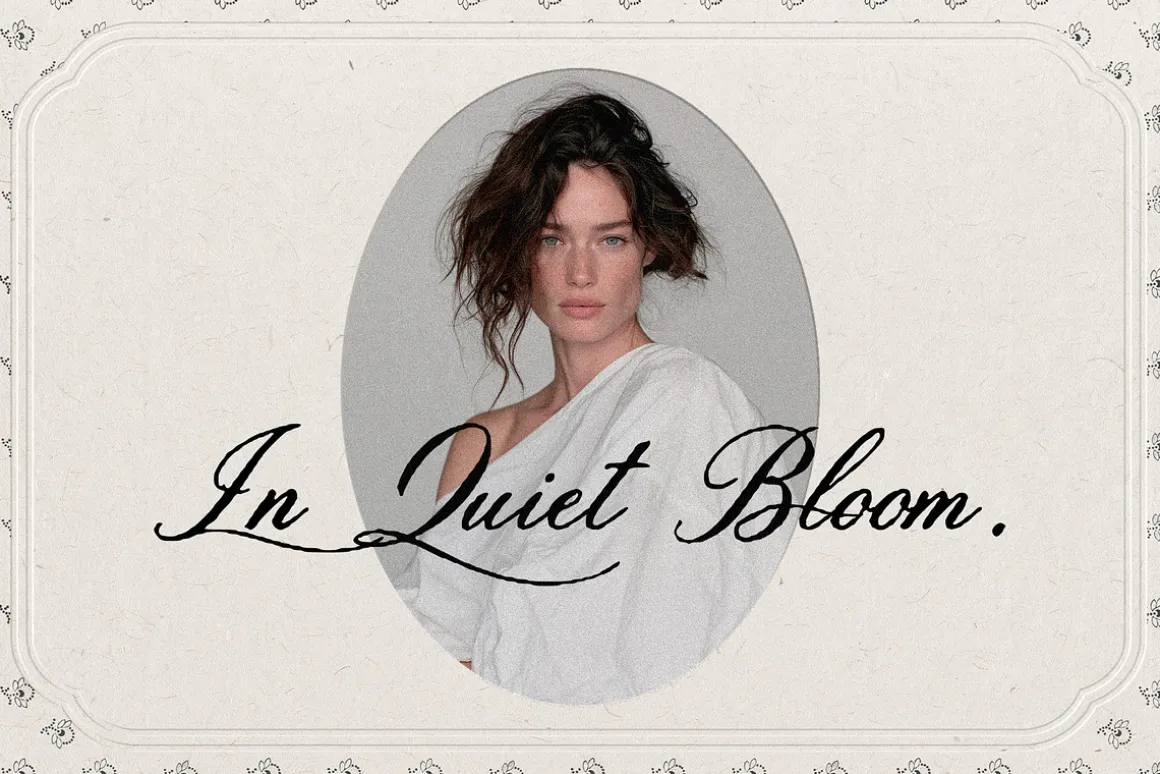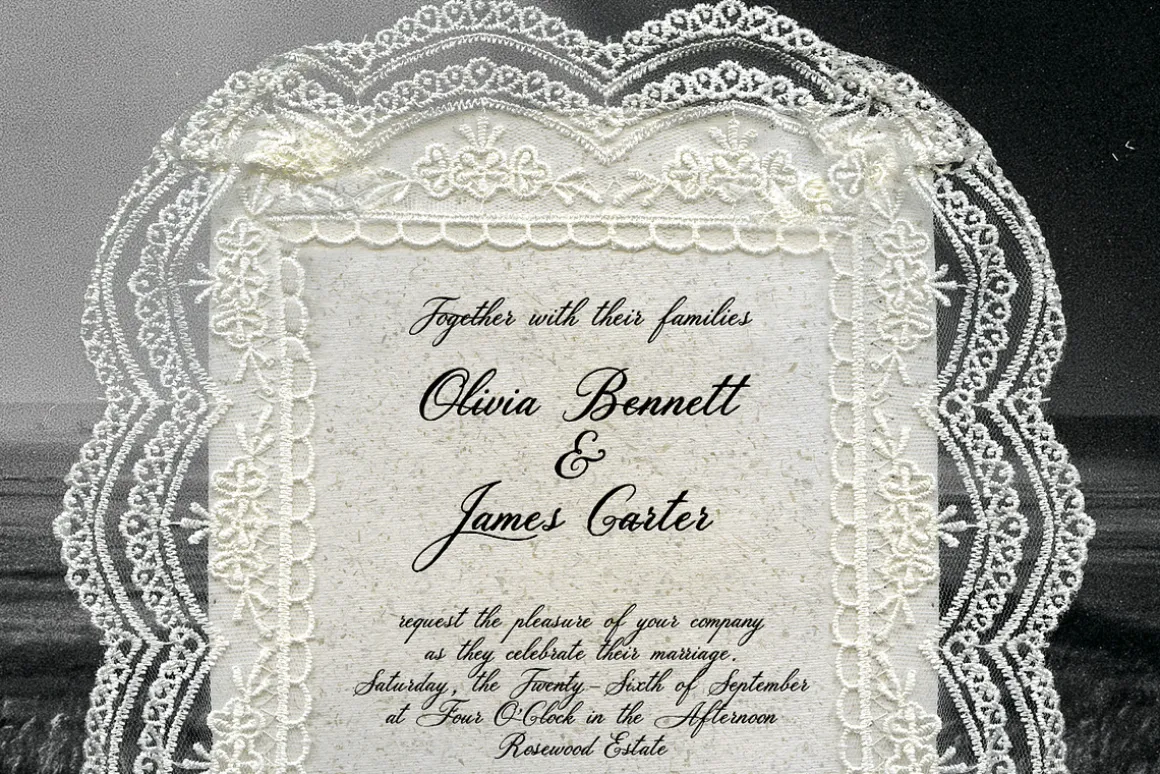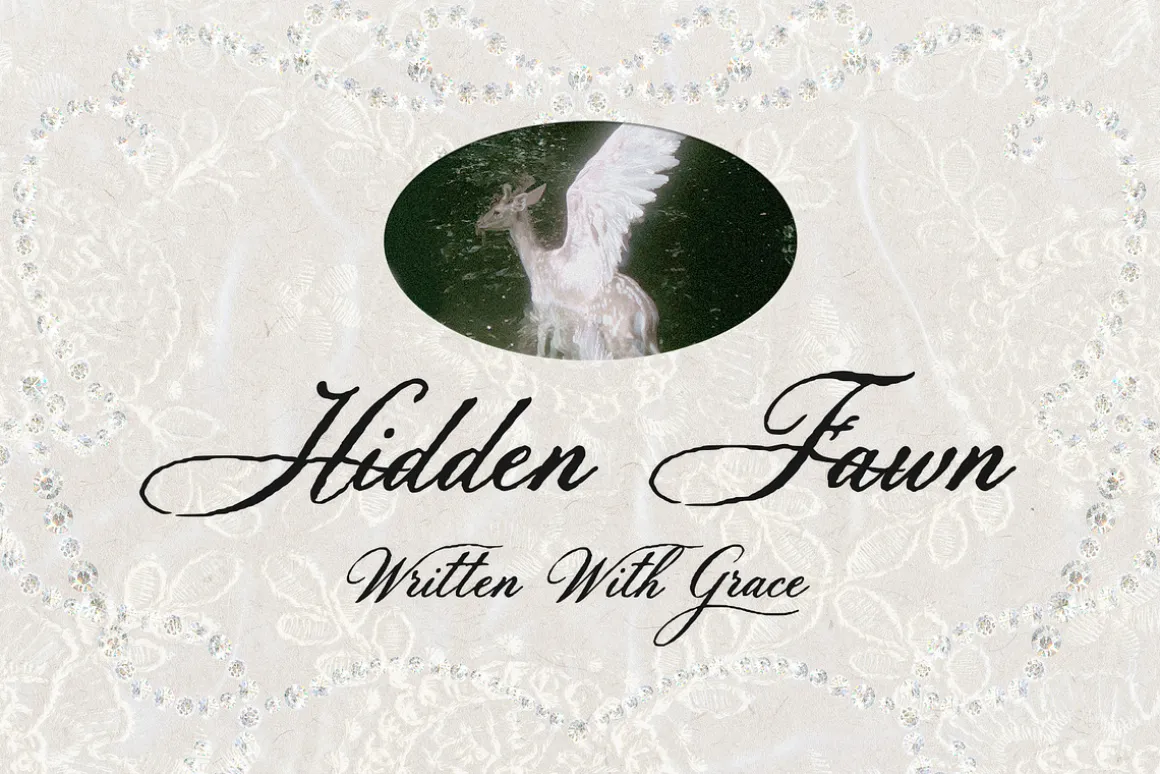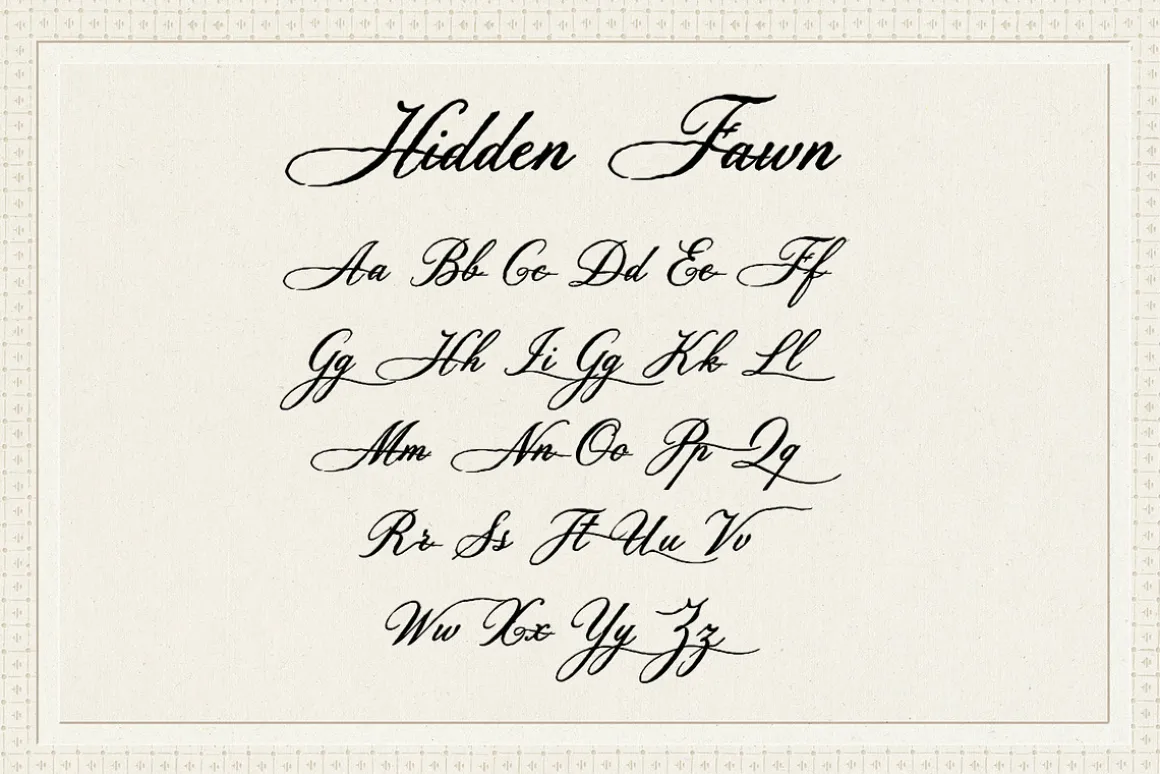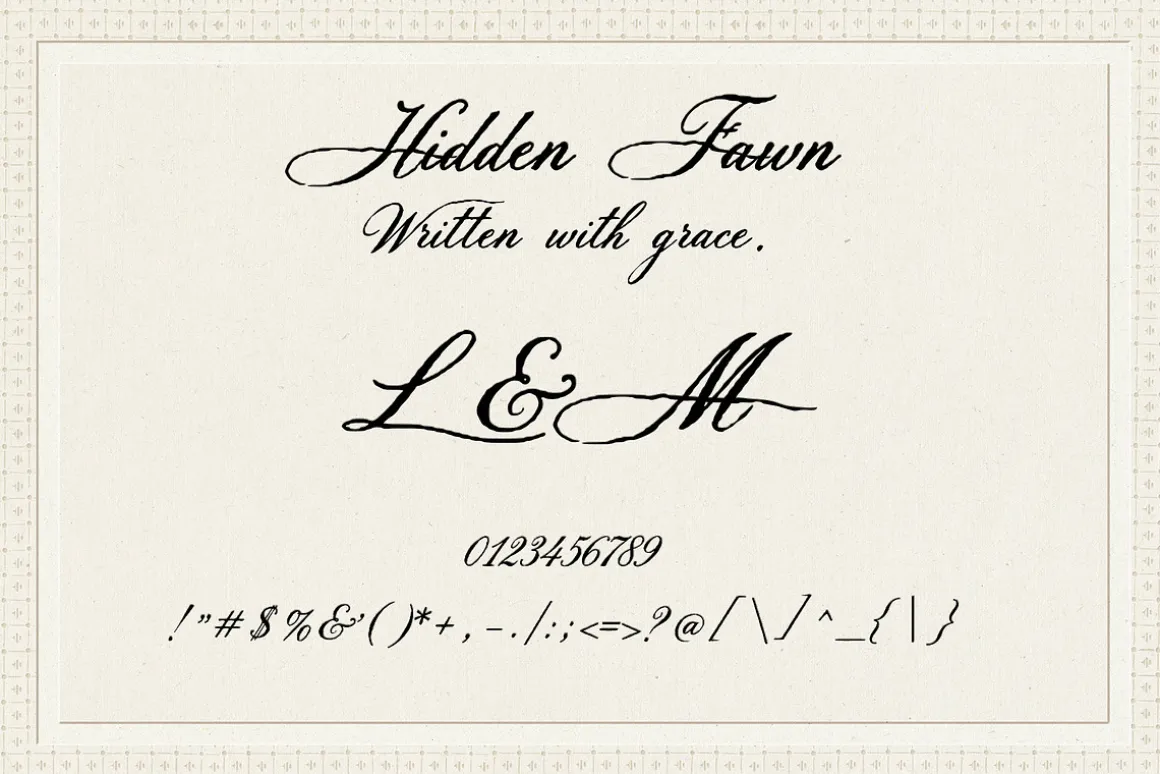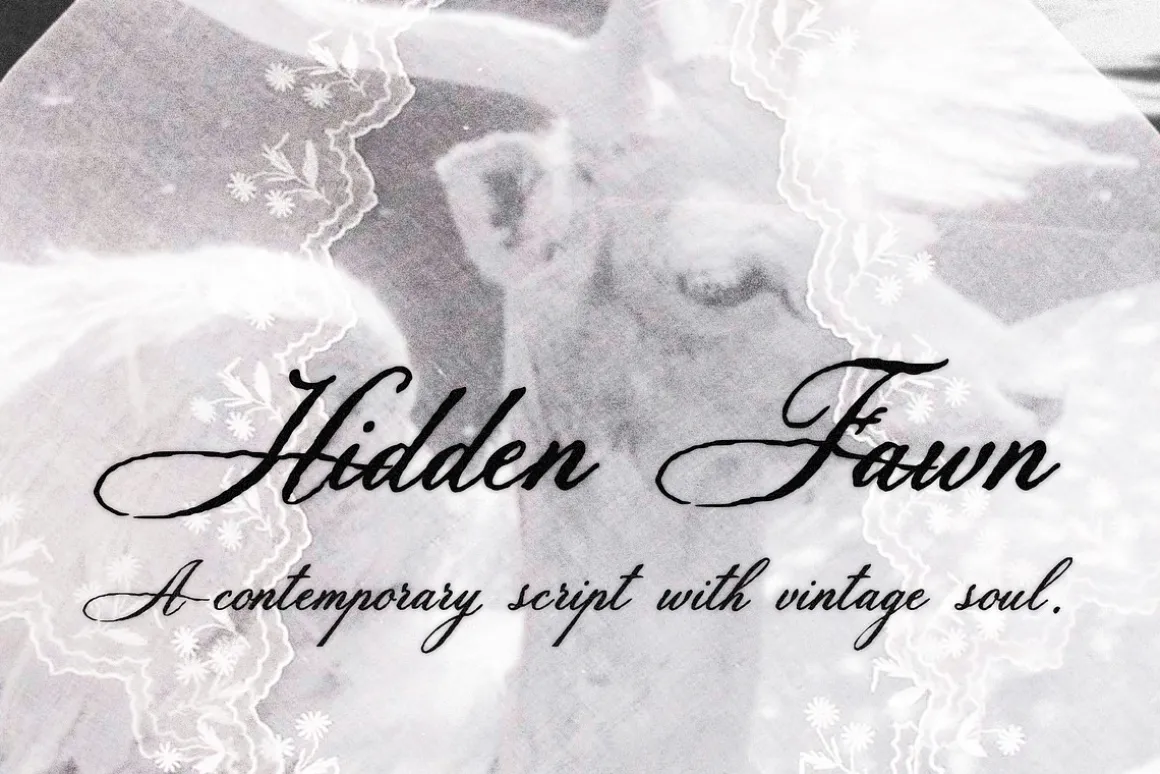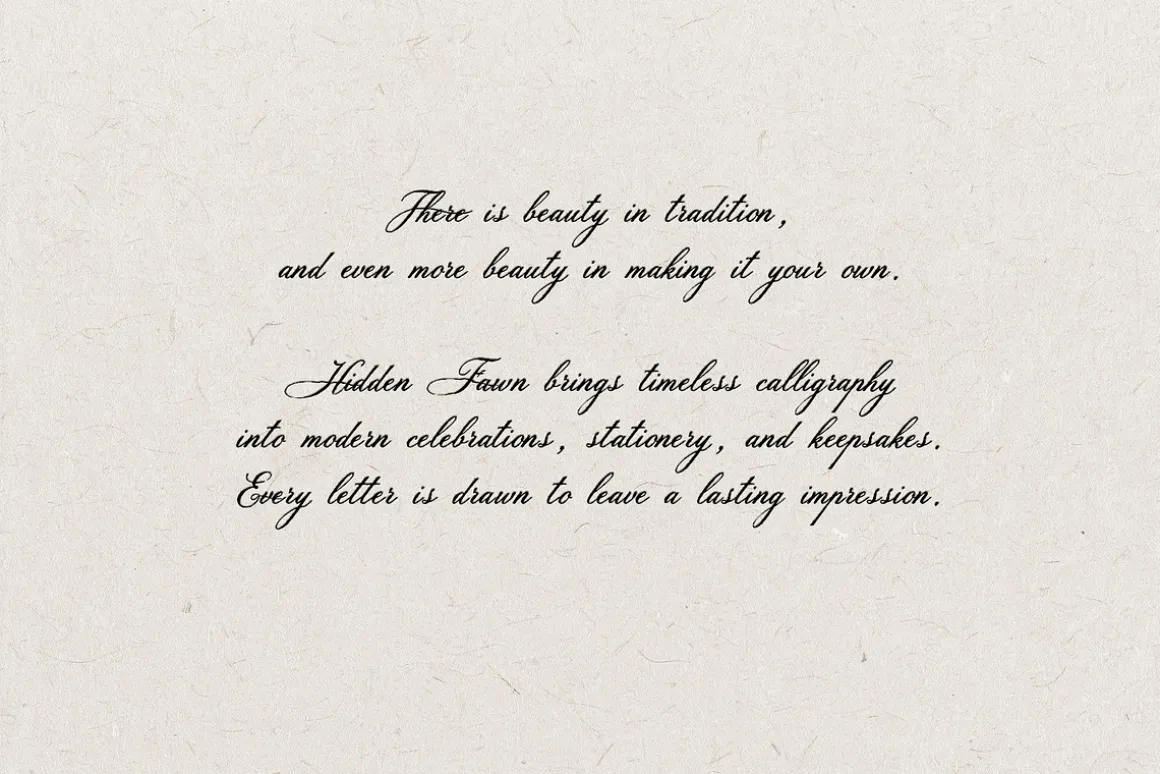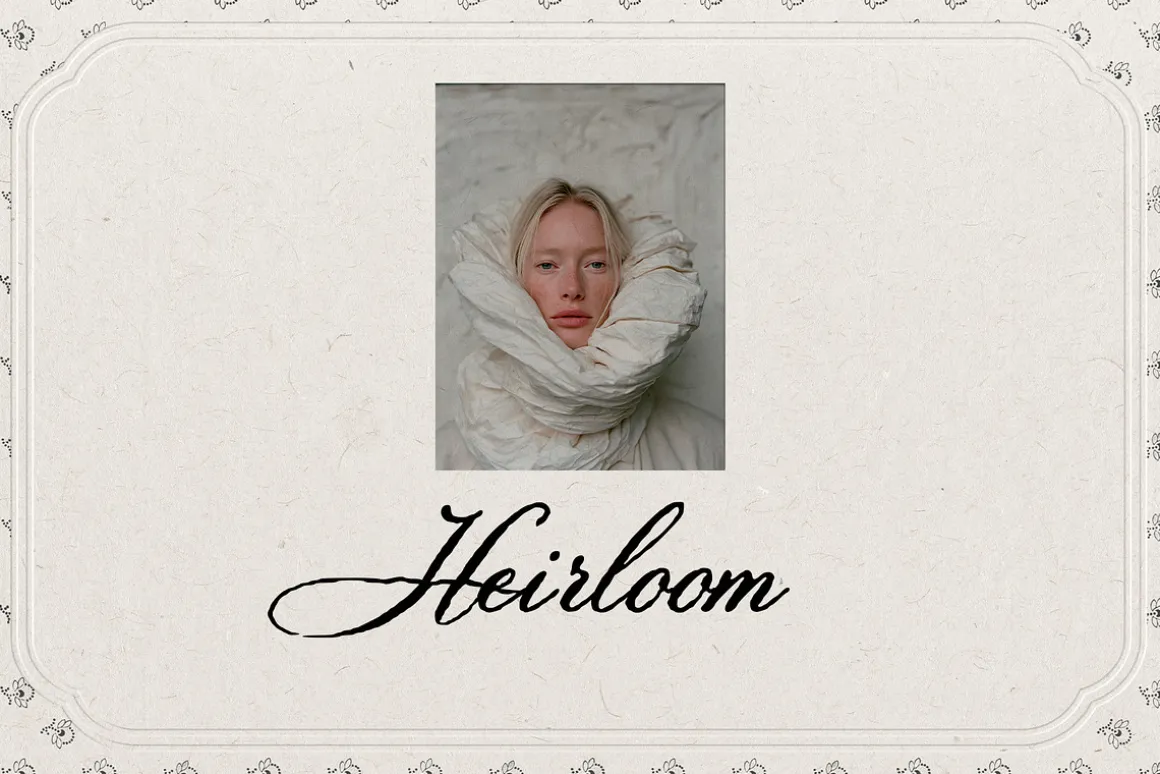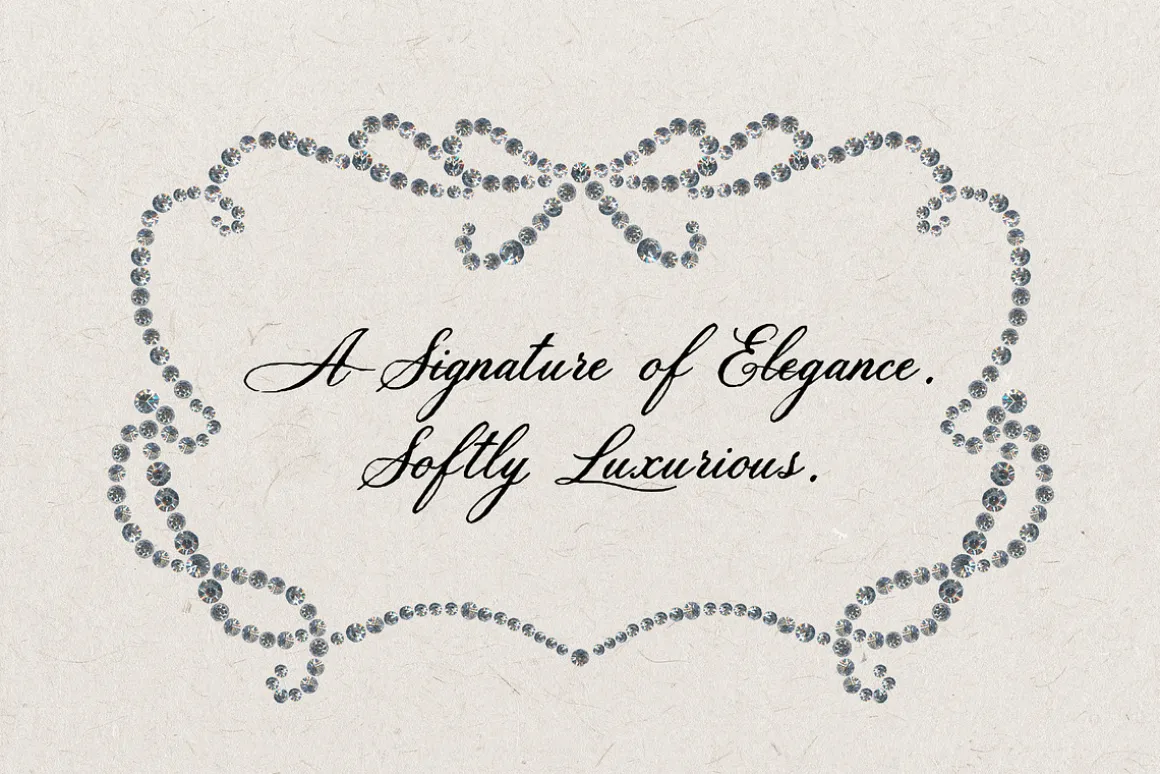
Hidden Fawn is an expressive calligraphy script inspired by heirloom stationery, garden romance, antique correspondence, and editorial typography. Flowing flourishes, ornamental capitals, and graceful alternates create lettering that feels collected rather than constructed – perfect for branding, paper goods, luxury packaging, book covers, invitations, and modern editorial design.
Perfect for
• Wedding invitations• Luxury branding• Editorial layouts• Logos & signatures• Beauty and fashion brands• Packaging design• Social media graphics• Certificates• Greeting cards• Book covers